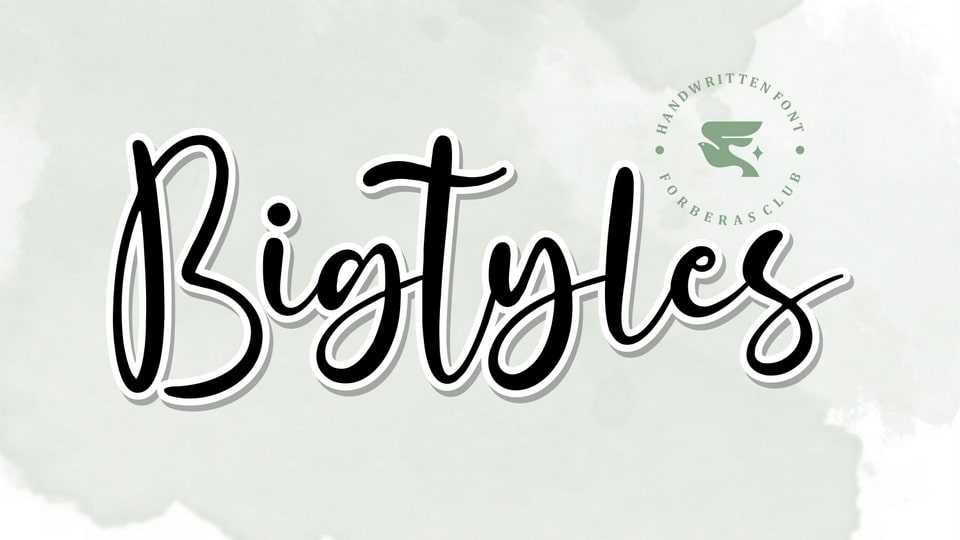
Download Bigtyles font, a bouncy script typeface inspired by modern and handwriting. Bigtyles font is perfect for creating modern and chic designs such as logos, packaging, editorials and more.